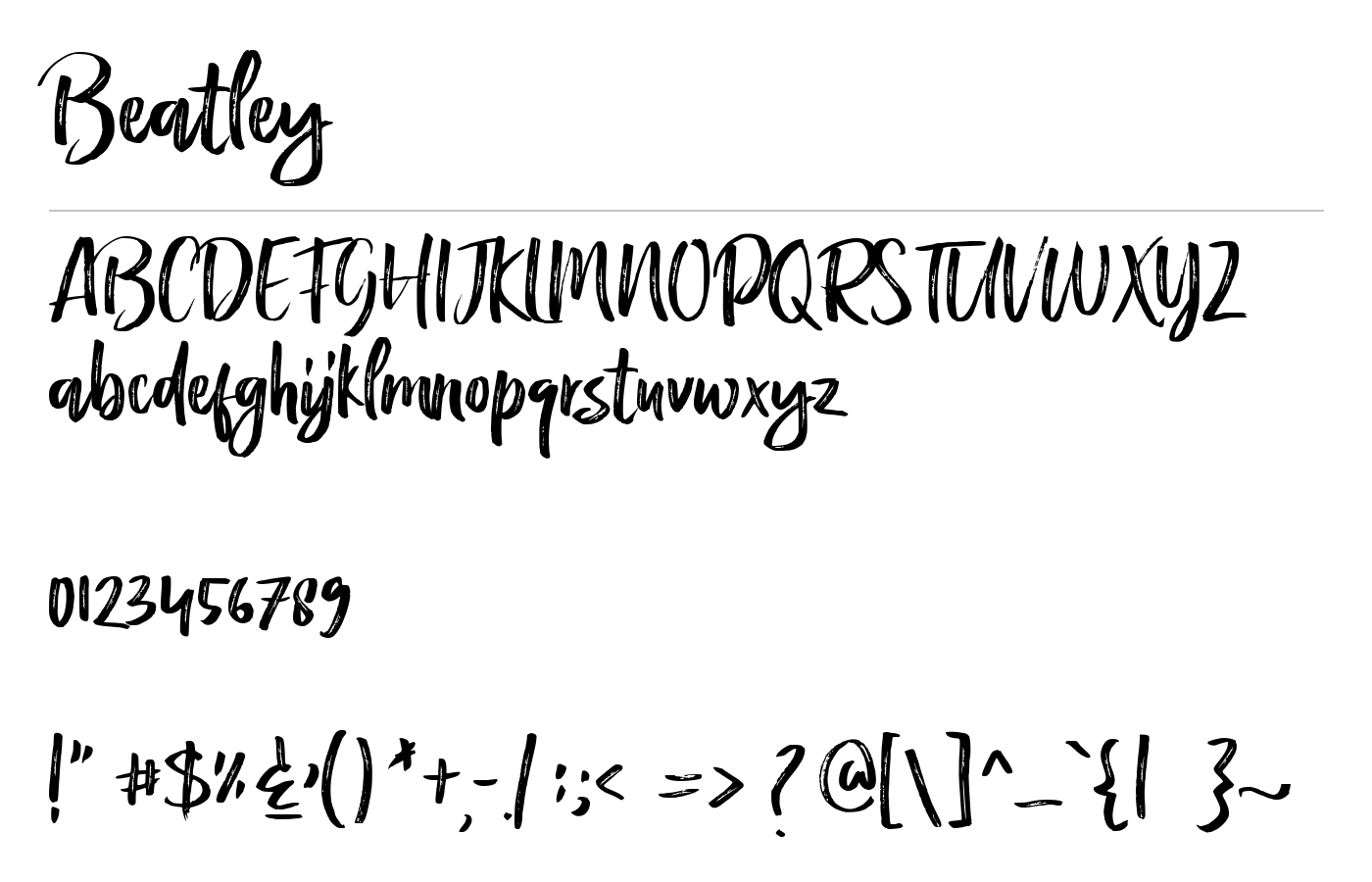
Beatley is a lively and expressive handwritten script font characterized by its dynamic brush strokes and natural, casual flair. Its airy, textured letterforms with moderate contrast and playful curves make it perfect for creative branding, invitations, and any design that seeks a personal, warm, and artistic touch. This font works well in headlines and logos where a handcrafted, friendly style is desired.
Beatley Font
About Beatley Font
| Font family | Beatley Font |
| Designer | Debut Studio |